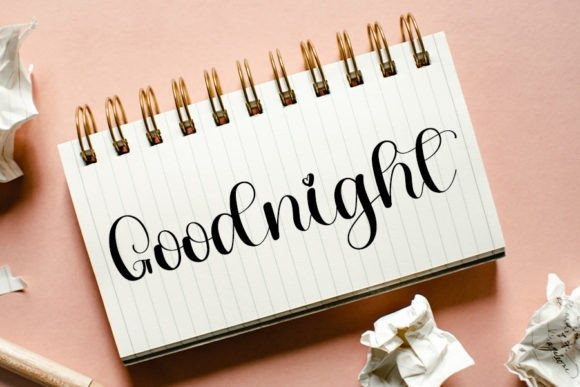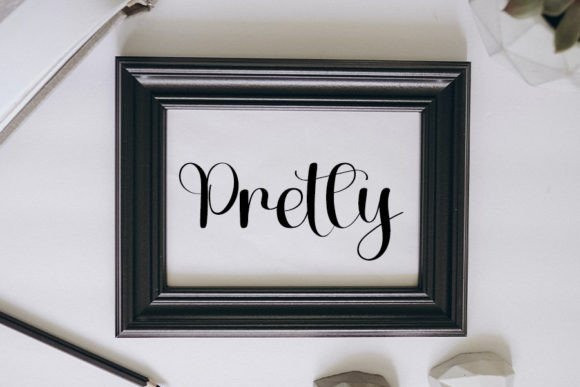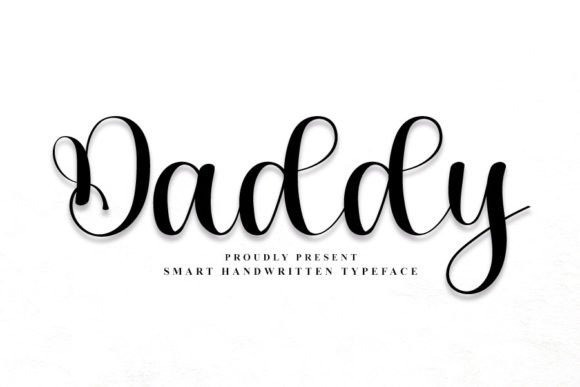
Daddy Script Typeface
Daddy Script Typeface, is a trendy handwritten font with a contemporary atmosphere and impeccable form, inspired by a timeless classic calligraphy. It will add elegance and class to any of your design projects.